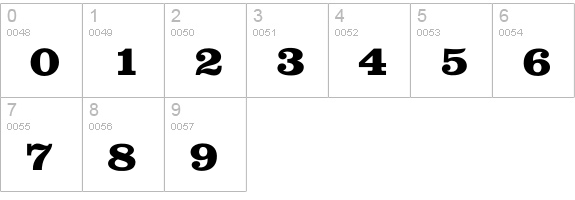
Clarxndon ExtraBold Font Details
Clarxndon ExtraBold is an extra-heavy, attention-grabbing variant in the Clarxndon typeface family \xE2\x80\x94 well suited to high-impact headlines, posters, and bold branding.
Introducing Clarxndon ExtraBold font - a bold and impactful typeface designed to make a statement. With its strong and commanding presence, this font is perfect for headlines, banners, and any design project that requires a touch of boldness. The thick strokes and sharp edges of Clarxndon ExtraBold exude confidence and modernity, making it a versatile choice for both digital and print applications. And the best part? Clarxndon ExtraBold is available for free download at FontsMarket.com. Whether you're a seasoned designer looking to add a new font to your collection or a beginner exploring typography for the first time, this font is a valuable addition to any creative arsenal. Don't miss out on the opportunity to elevate your designs with the striking presence of Clarxndon ExtraBold - download it today and let your creativity shine!